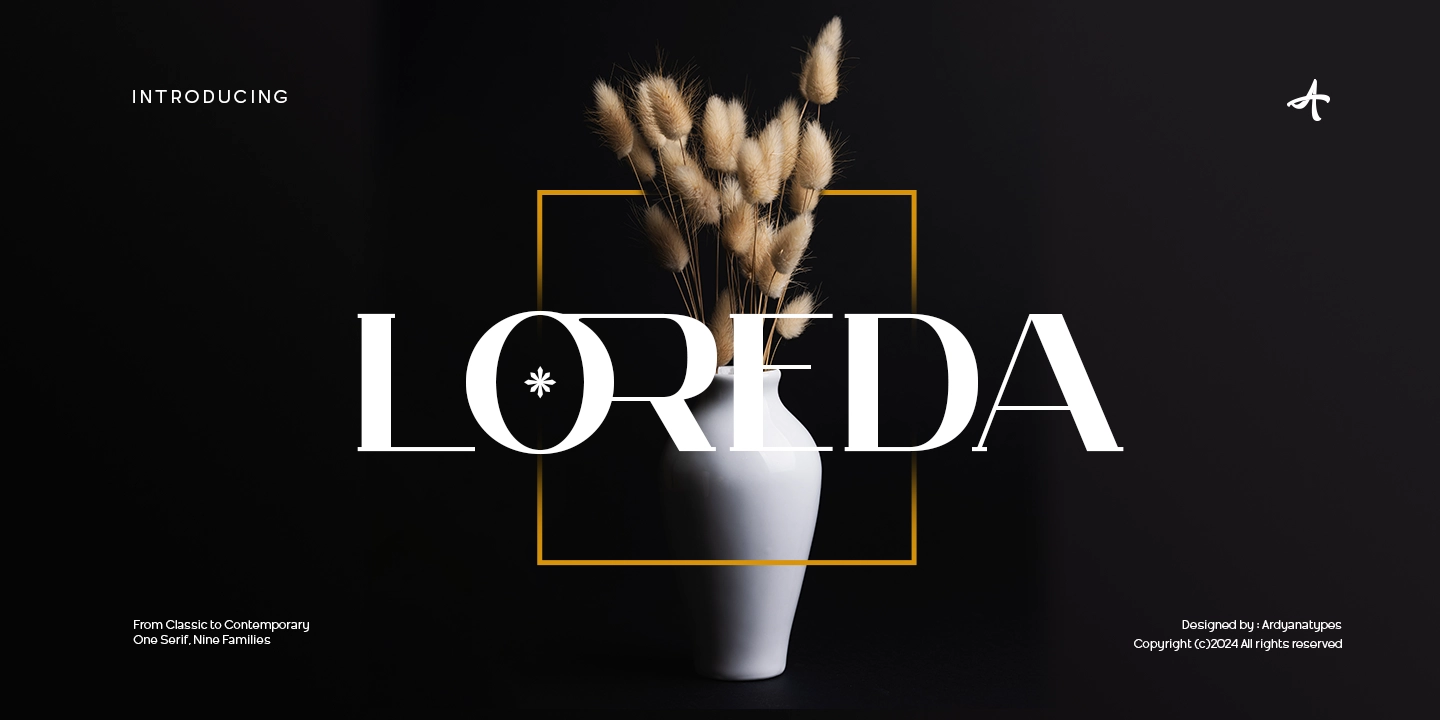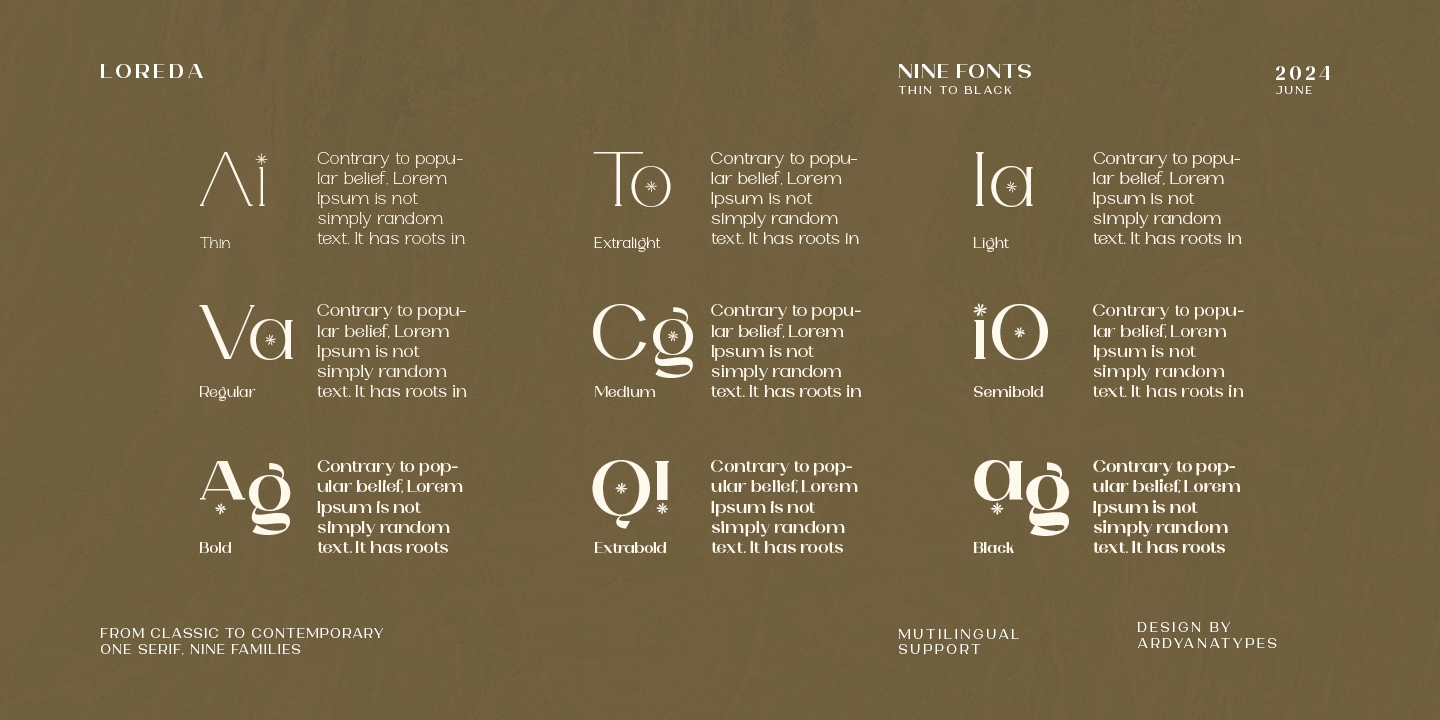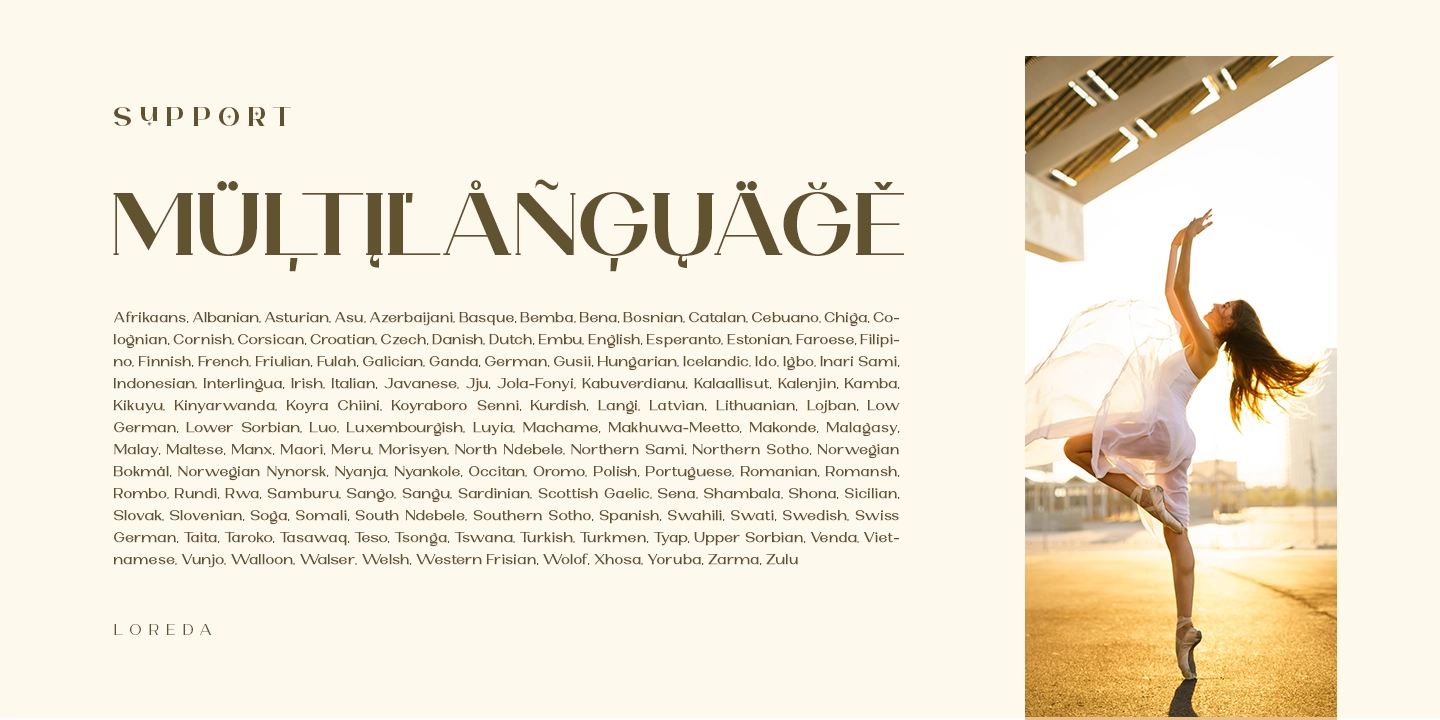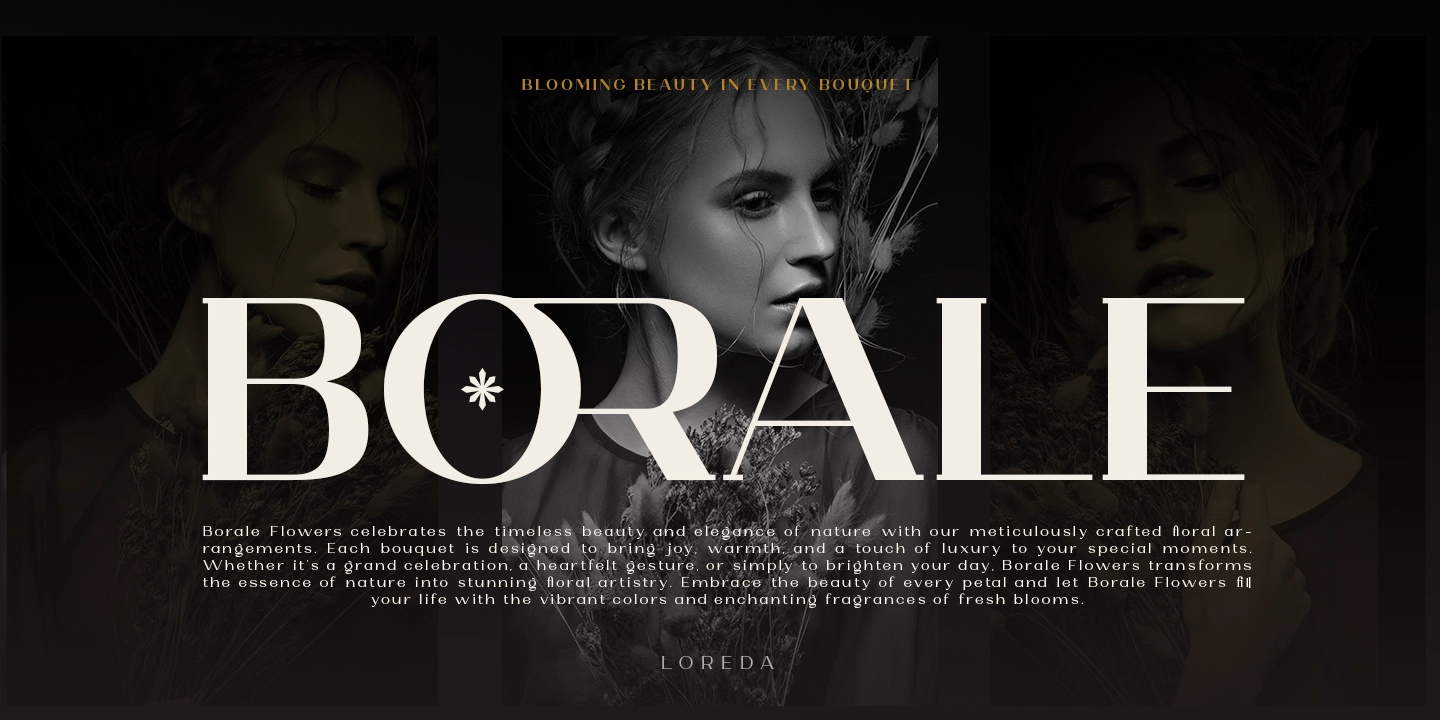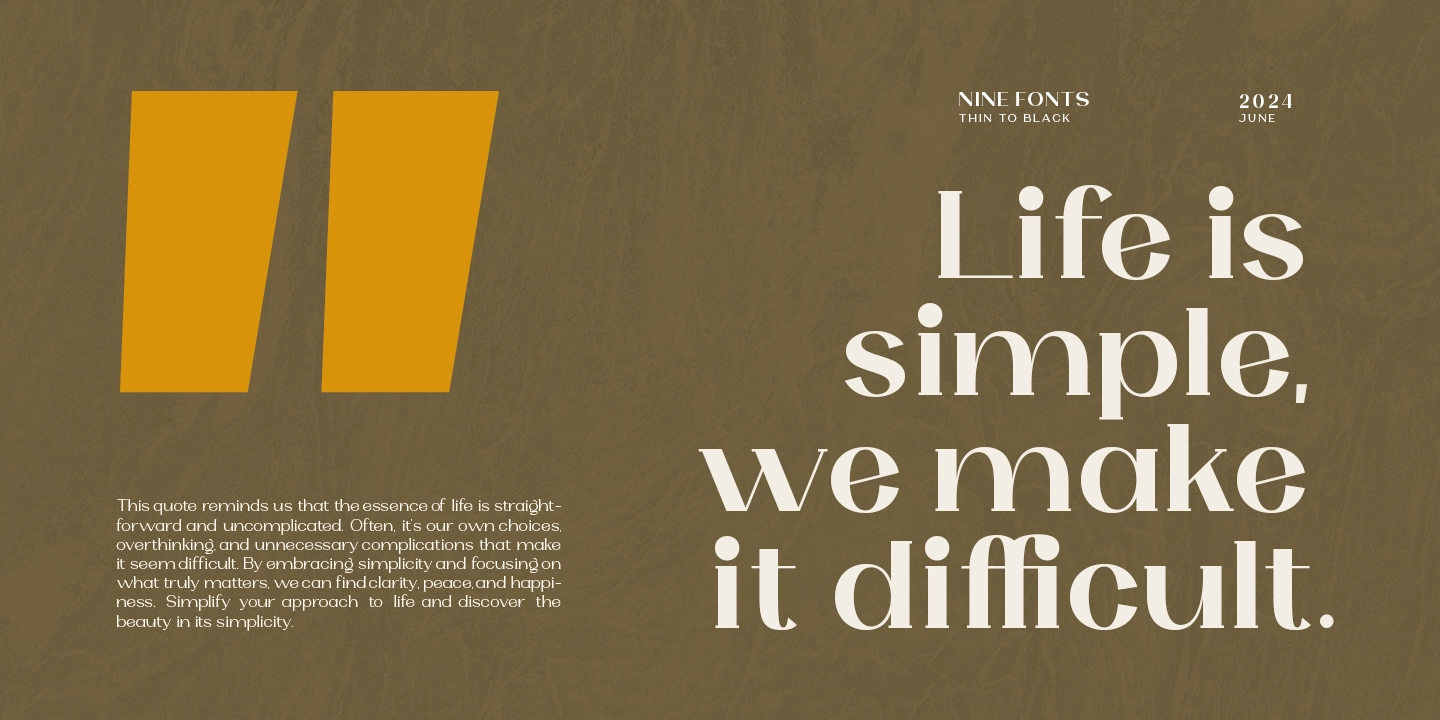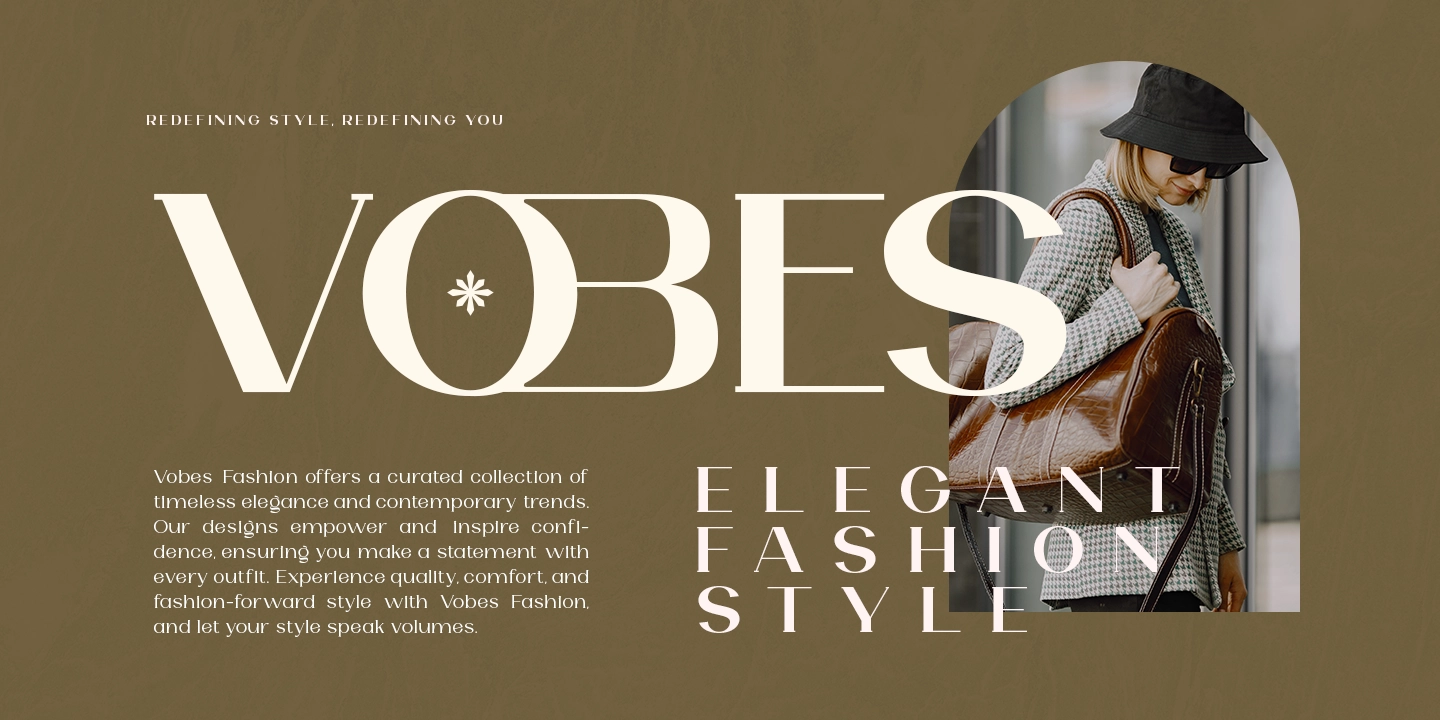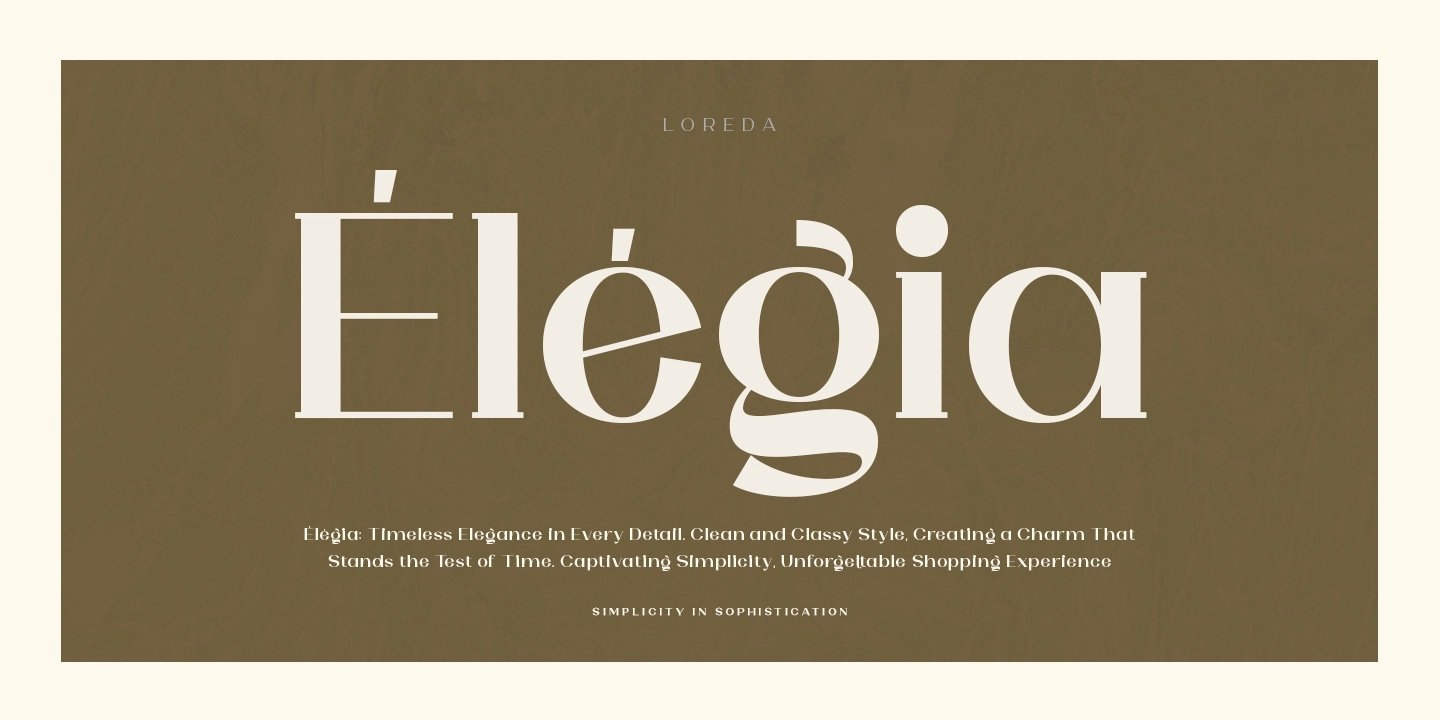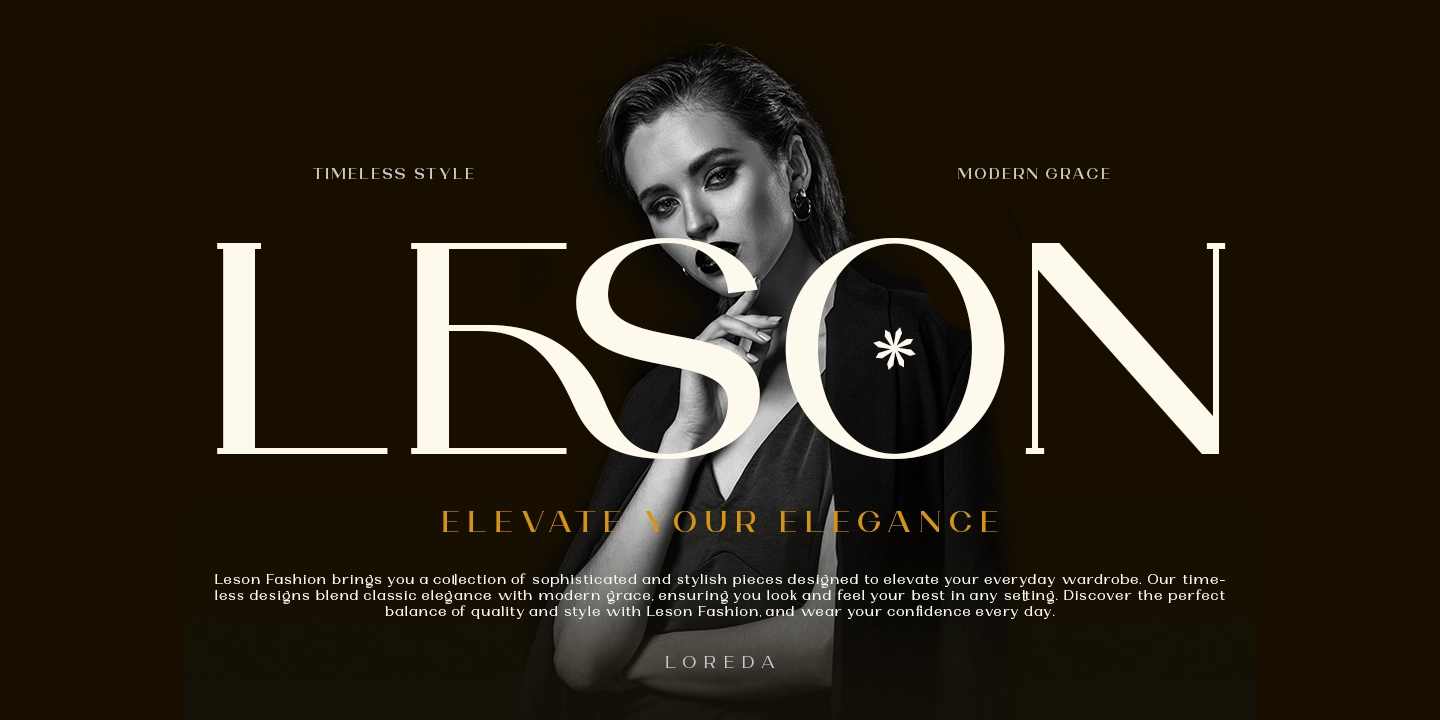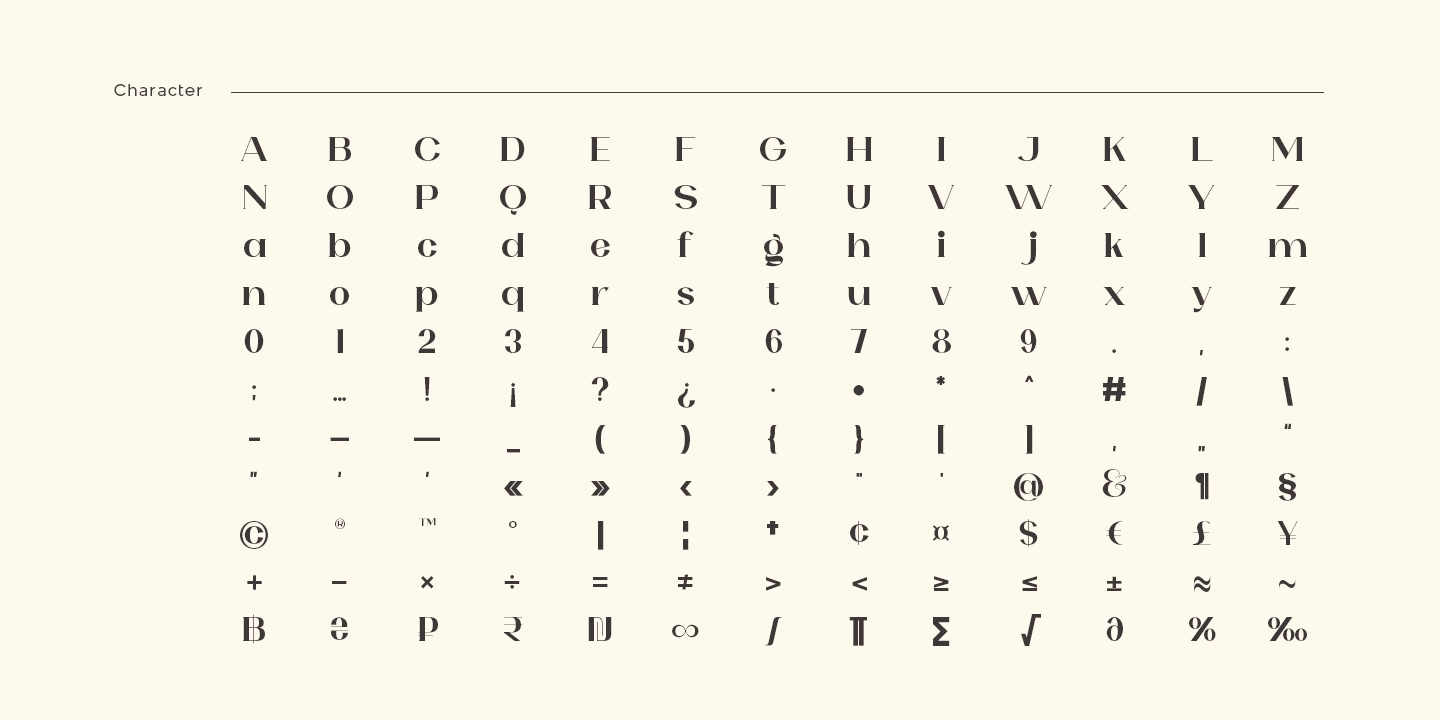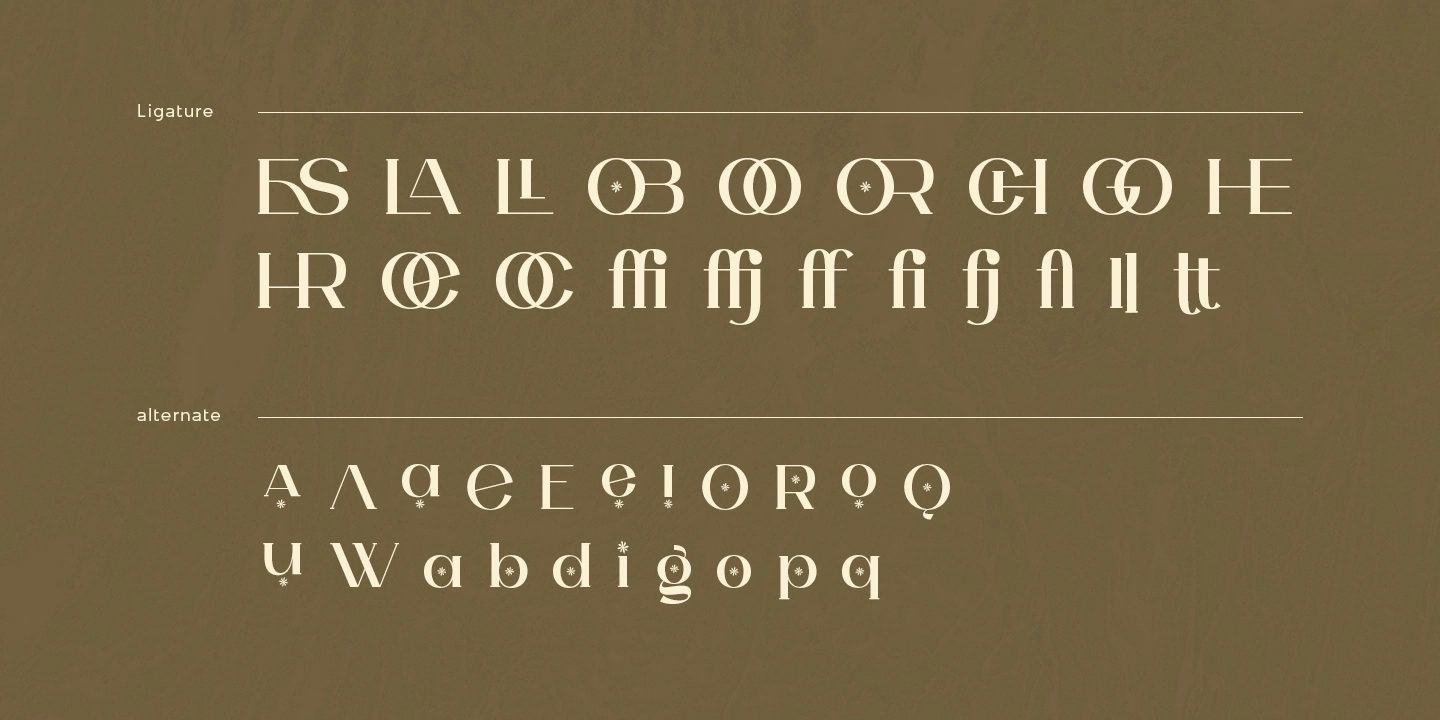
Loreda
9 Styles
The appearance of the serif tagline is modern and elegant. This font comes in nine thickness levels, from light to black, to suit your needs. It pairs well with modern sans serifs and scripts as pictured or stands alone as a representative header and brand for an elegant look. Loreda is equipped with professional modern character fonts that can provide a sleek and attractive identity for your company for business purposes, such as business cards, name tags, and uniforms as brand elevation. This modern Loreda typeface is perfect for embossing as signage or even splashing around your office with elegant looking sticker pieces. This elegant Loreda shape also looks great on the cover of a book or magazine article. You can see all the available characters in the screenshot above, and you can try modern & elegant Loreda now for any design concerns. Loreda is also multilingual, making it easy for any country and language. It also comes with ligatures and alternative styles to make your designs more interesting.
• ffi ffi
• ffj ffj
• CH CH
• ES ES
• GO GO
• HE HE
• HR HR
• LA LA
• LL LL
• OB OB
• OC OC
• OE OE
• OO OO
• OR OR
• fj fj
• fl fl